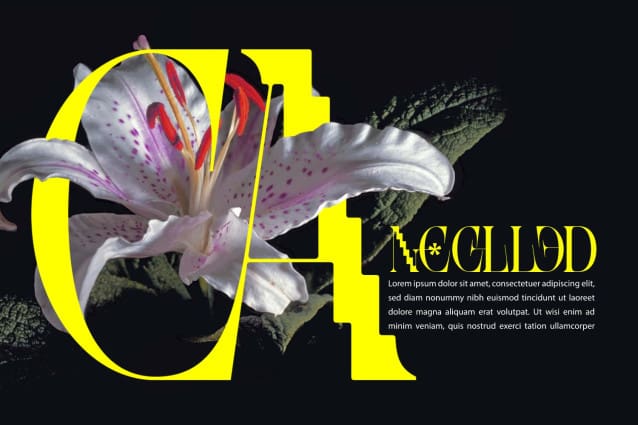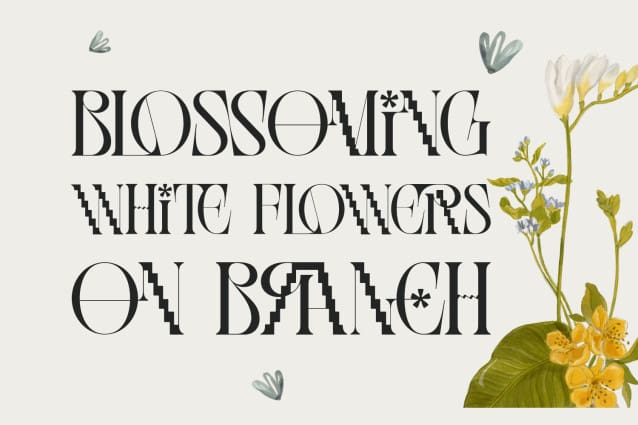
However Font
However Font is a modern serif font that combines timeless elegance with a pixelated twist. This typeface embodies a captivating blend of classic refinement and cutting-edge attitude. Think sleek serifs, graceful curves, and a dash of pixelated rebellion. It’s a font that demands attention while retaining an air of timeless sophistication. Perfect for creating eye-catching displays, this font adds a sophisticated yet contemporary touch to your designs.
However Font was built with OpenType features and includes 100 ligatures, alternate, numbers, punctuation, and it also supports other languages.
AC AD AL AN AR AS AT AU AV BE CA CE CH CO CT DE DI EA EC ED EE EL EM EN EP ER ES ET FE FO FR GE HA HE HI HO IE IC IL IN IO IR IS IT JU KE LA LE LI LL LO LY MA ME MI NC ND NE NG NO NT NS OC OF OM ON OO OP OR OT OU OW PA PR RA RD RE RI RO RS RT SE SH SI SO SS ST TA TE TH TI TO TR TT UM UN UR VE WI WO